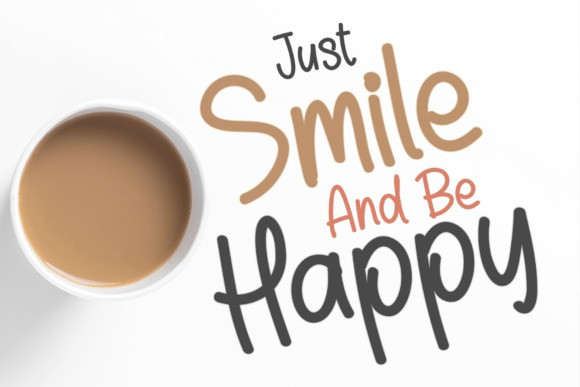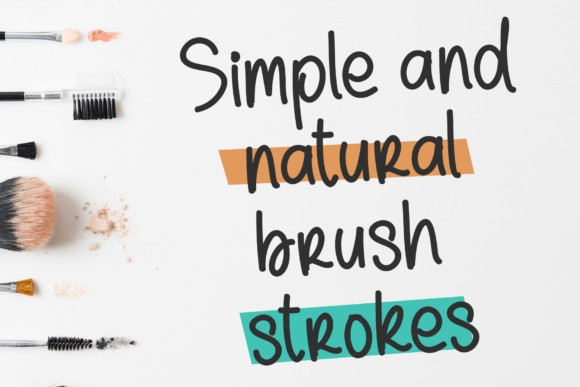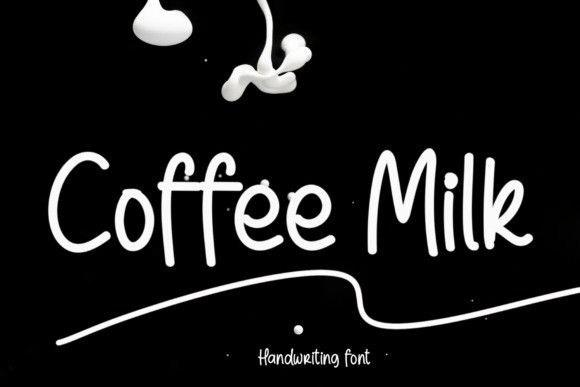
Coffee Milk Handwriting Font
Coffee Milk Handwriting Font is an incredibly unique handwritten font. designed intent to become a true favorite, It is the best choice for creating eye-catching logos, branding, and quotes. Every letter has a unique and beautiful touch, which will make your design come alive!